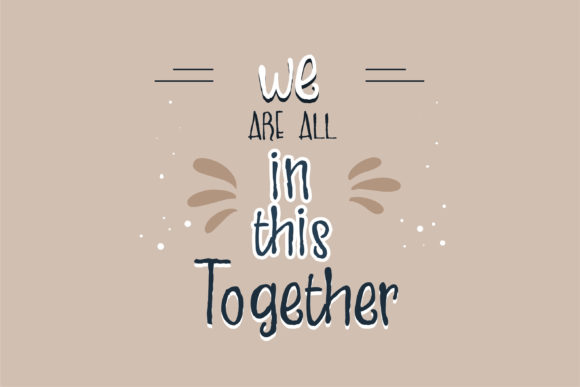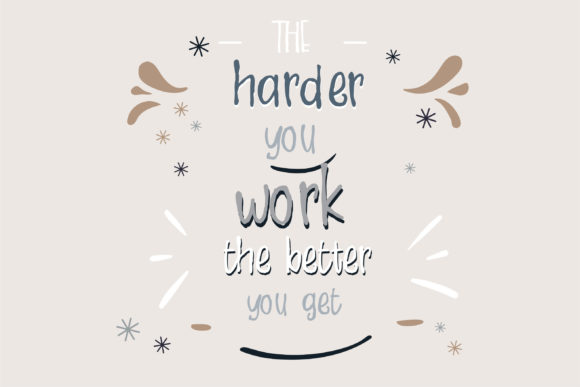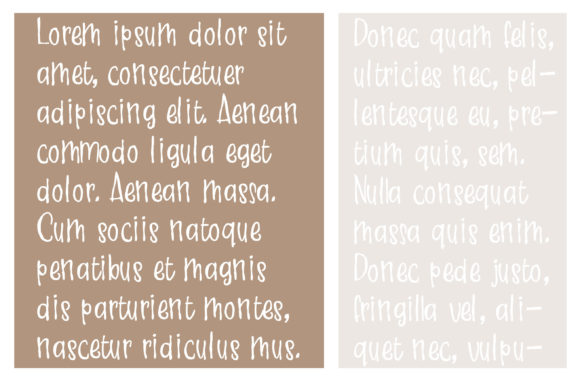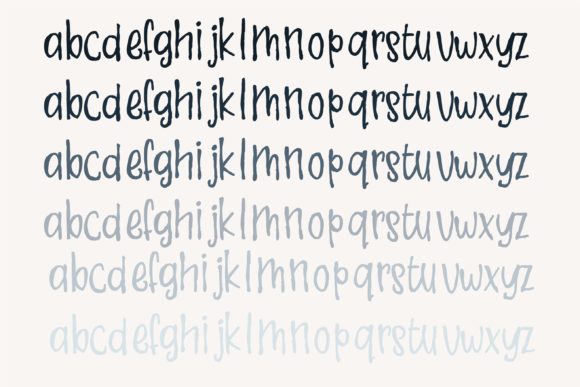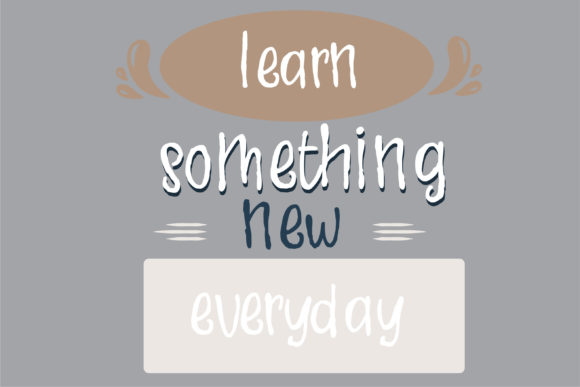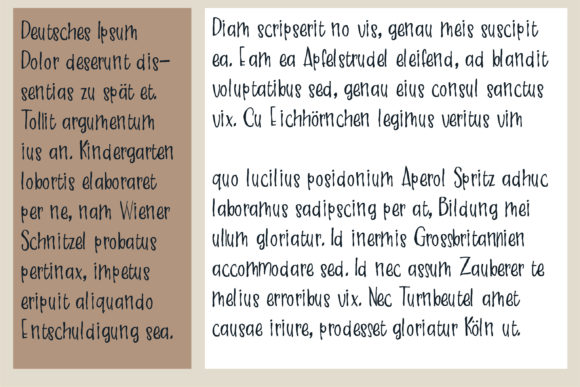
ZP Cheeseburger Font
About ZP Cheeseburger Font
ZP Cheeseburger is a quirky and charming script font. Its informal style and casual vibe will make this font a go-to choice for each of the creations that require a relaxed touch.